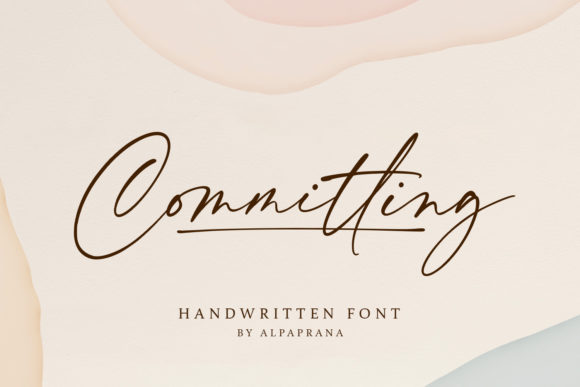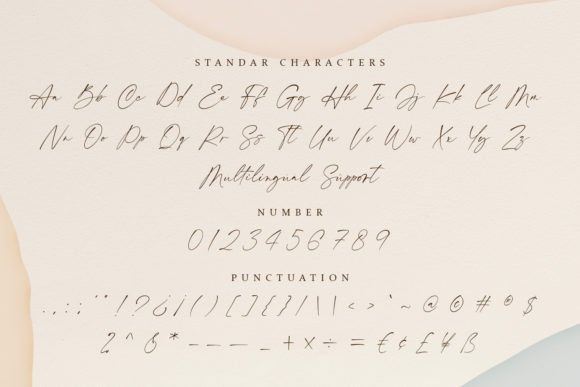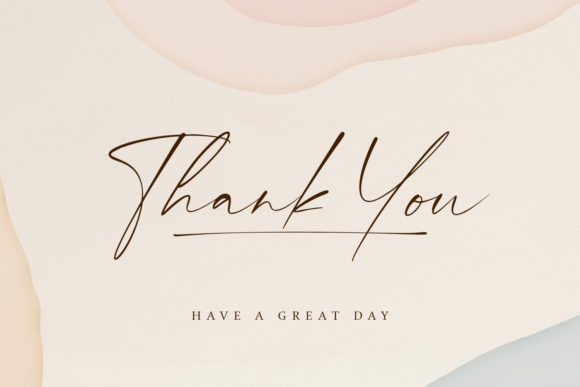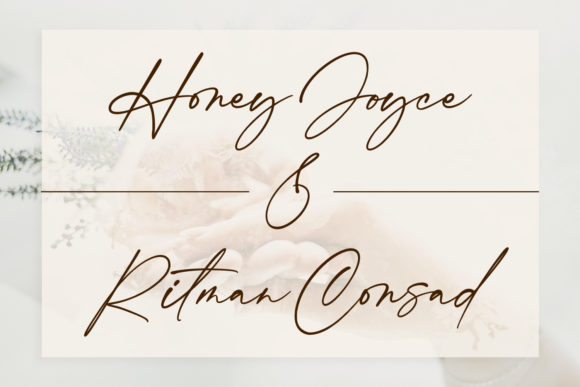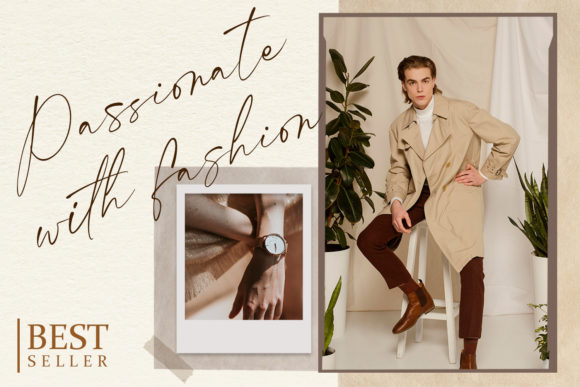
About Committing Font
Committing is a lovely and delicate script font that exudes elegance and class. It is PUA encoded which means you can access all of the glyphs and swashes with ease!